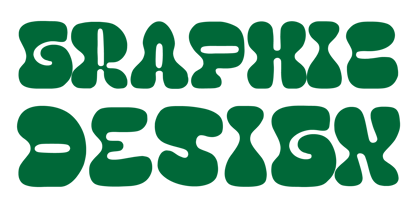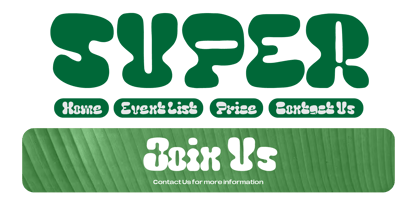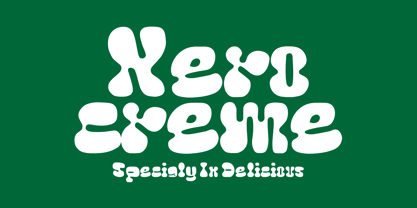
Menika
by Jetsmax Studio
The Menika Font Family was designed by Khairil Anwar and published by Jetsmax Studio. Menika contains 1 styles. More about this family
Menika is a unique typeface designed with a single weight, showcasing a playful and bubbly aesthetic inspired by blog-style typography. The characters in Menika are likely to have soft, rounded edges, resembling bubbles, imparting a friendly and approachable feel.
Designers: Khairil Anwar
Foundry: Jetsmax Studio